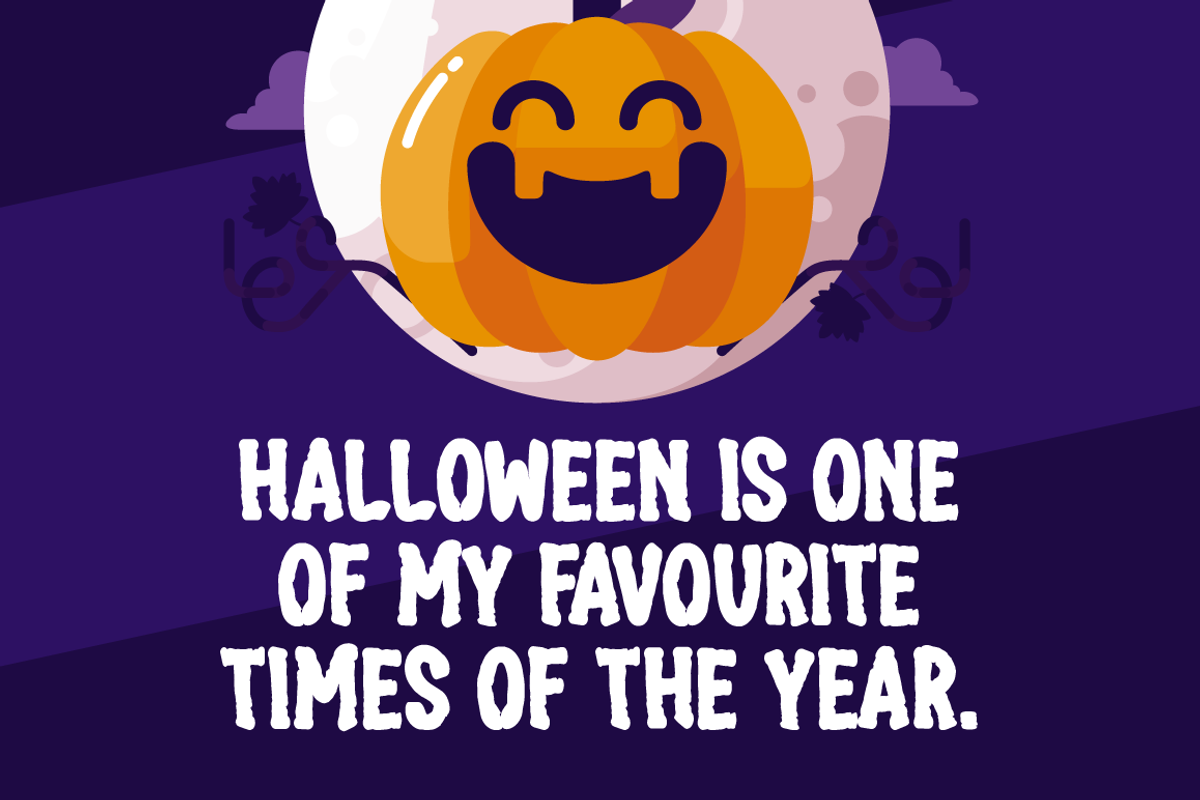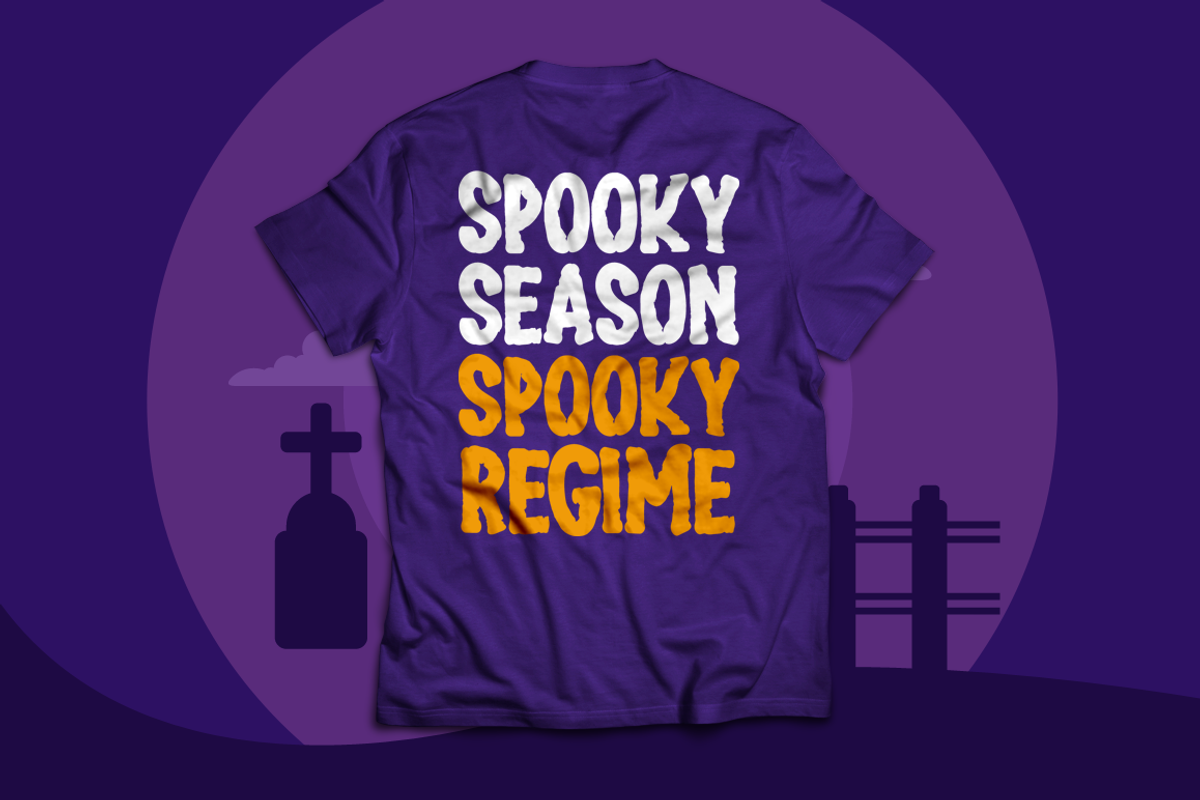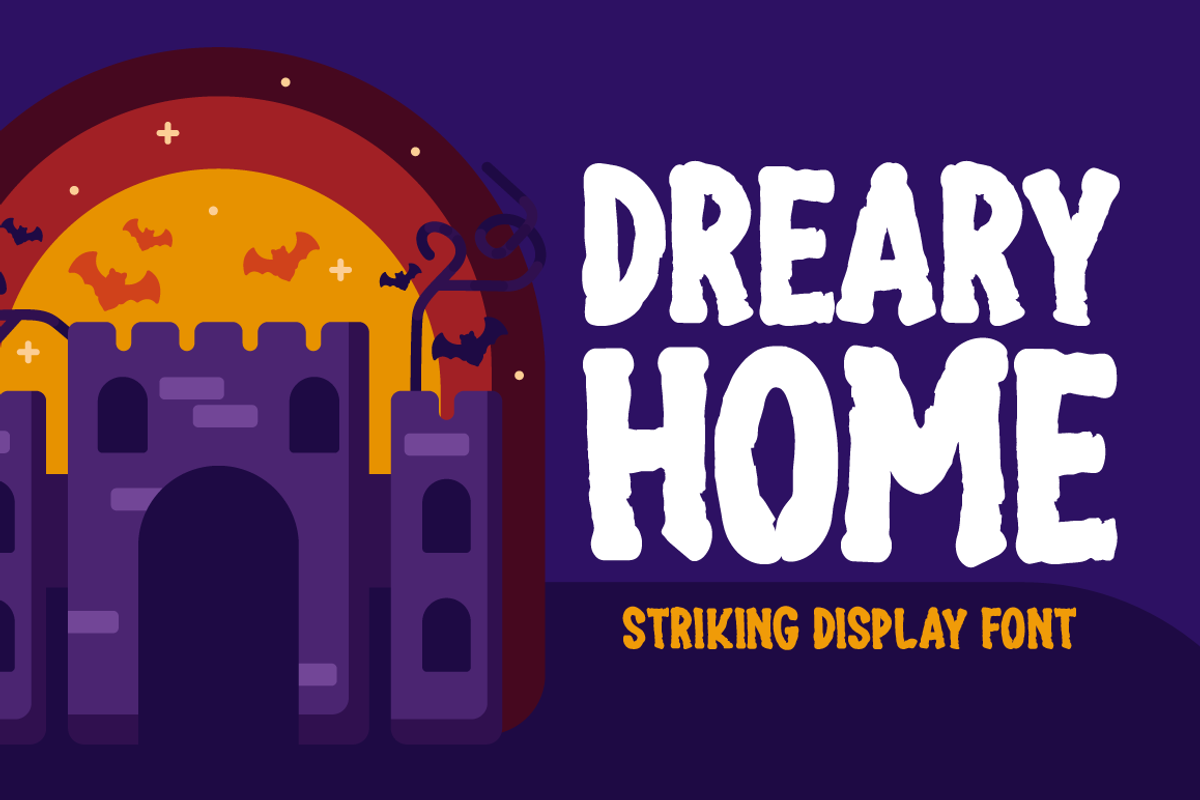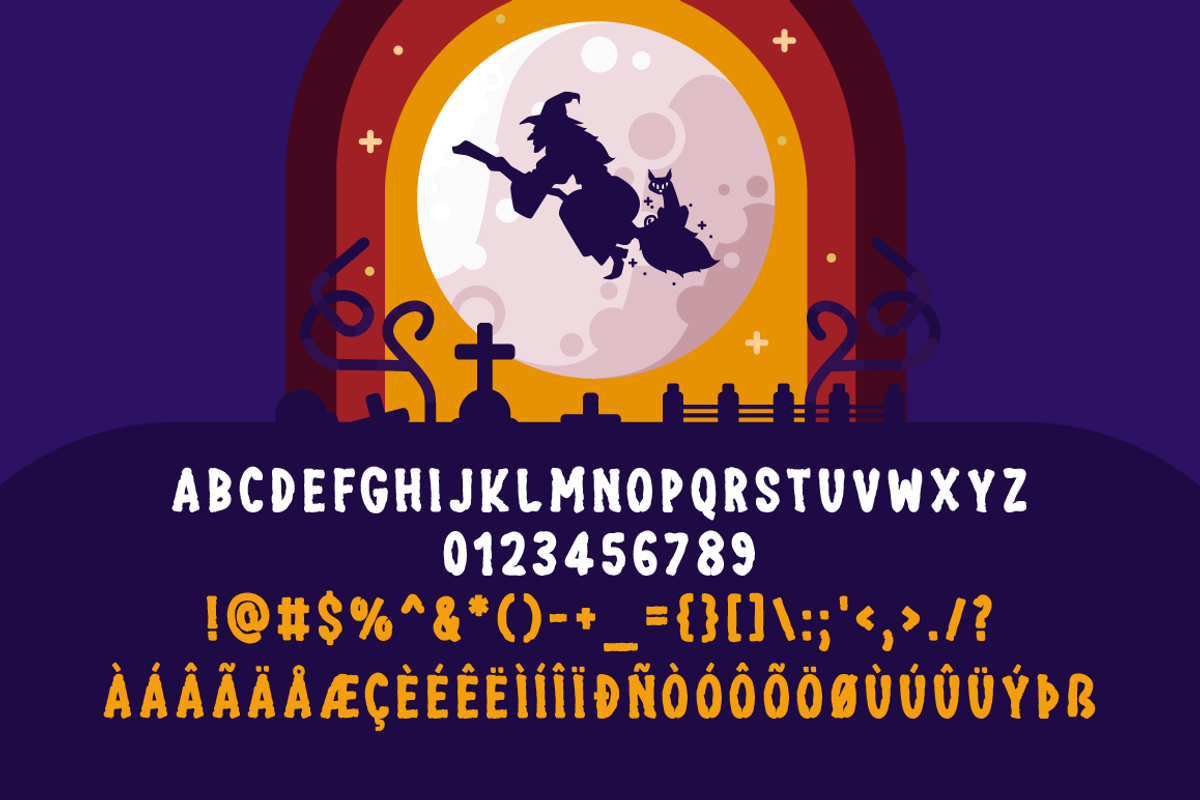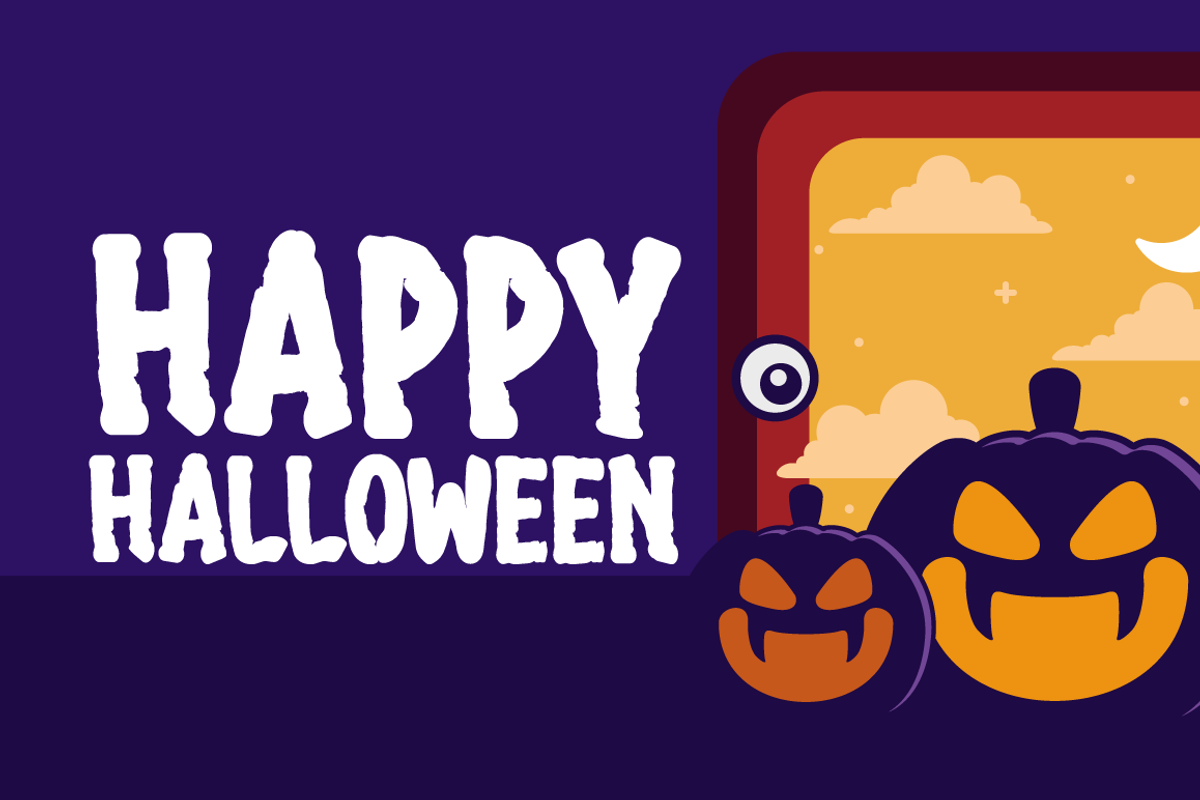
Dreary Home Typeface
Introducing Dreary Home!
Dreary Home is a casual and creepy-looking display font. It is perfectly suitable for any Halloween-related project or crafty idea! The only limit is your imagination.
Includes a range of multilingual support